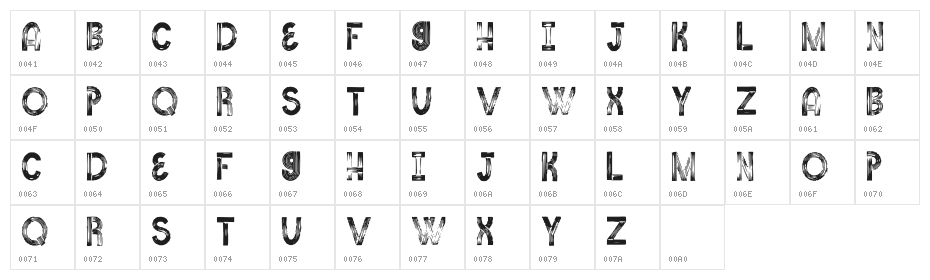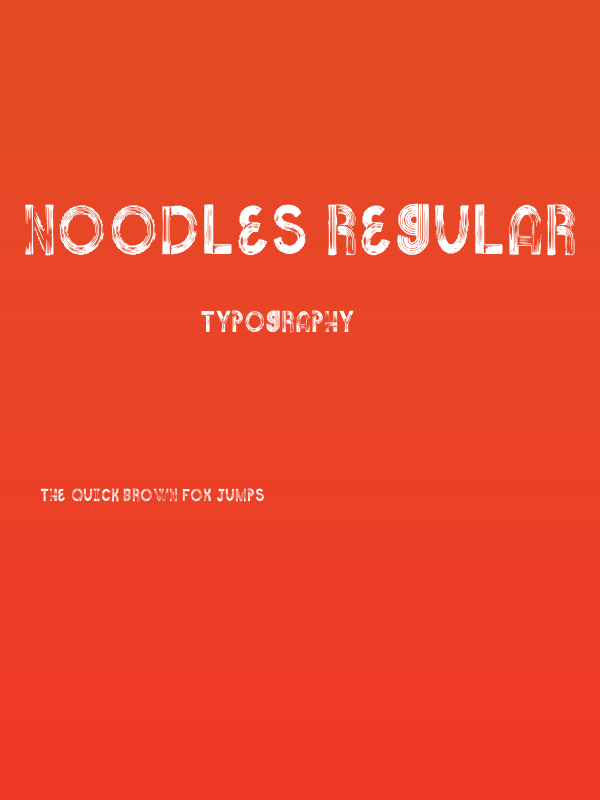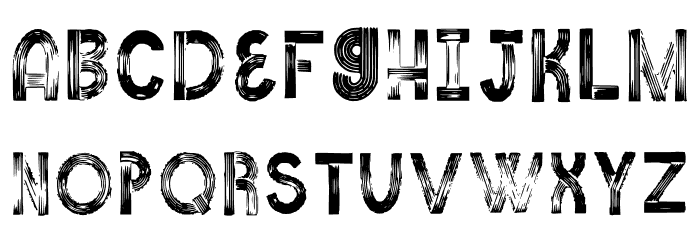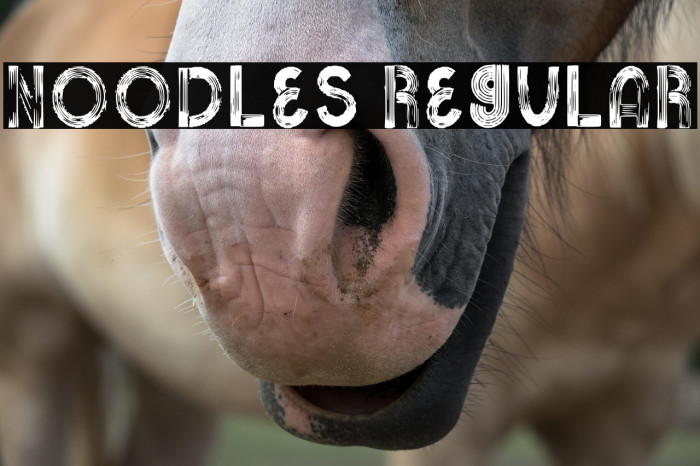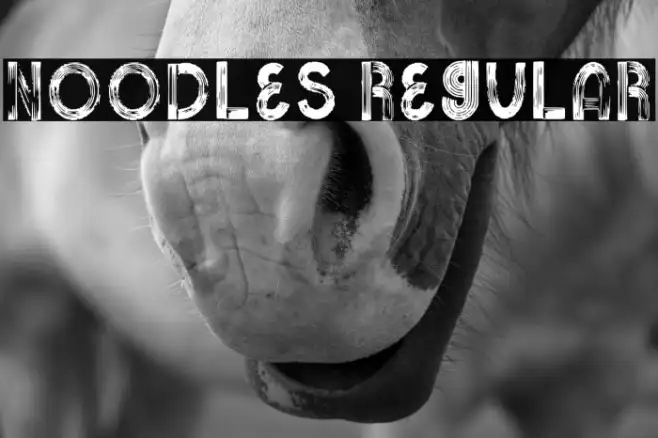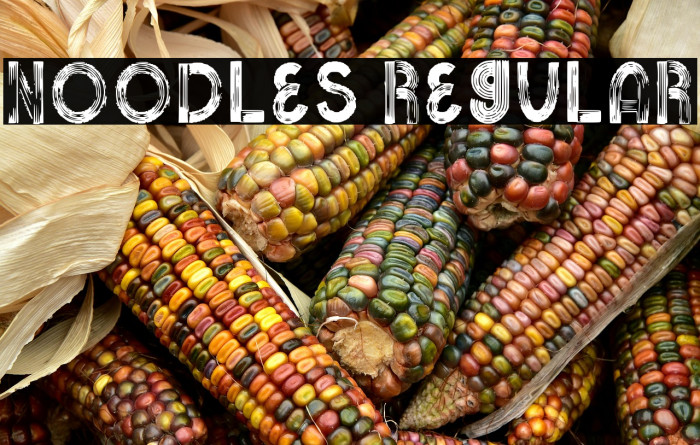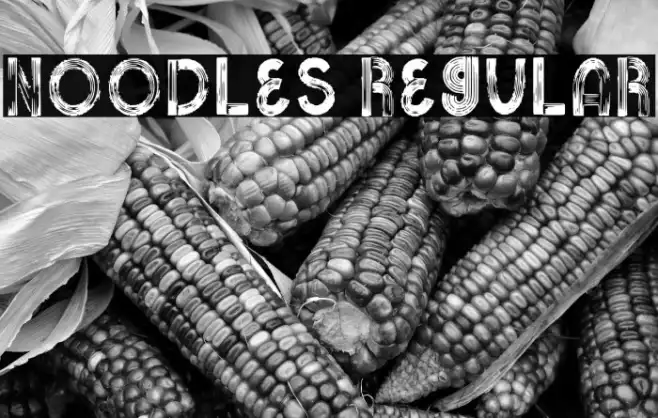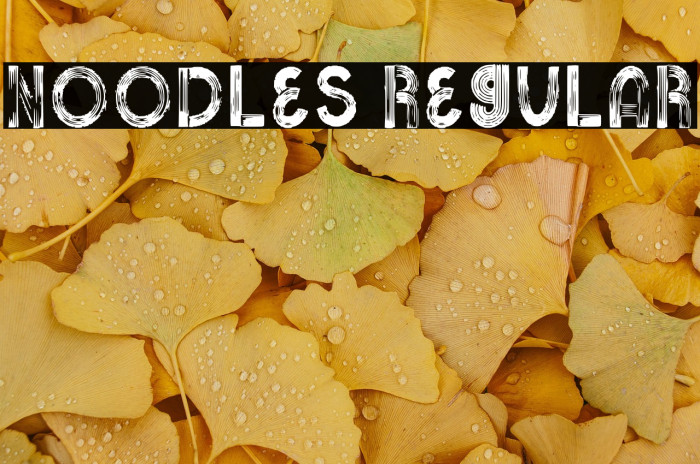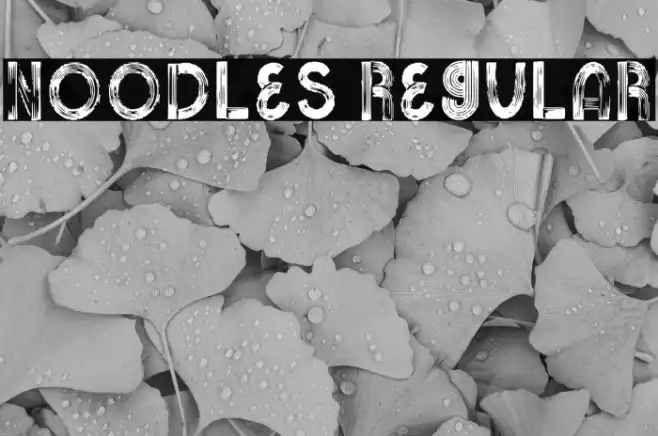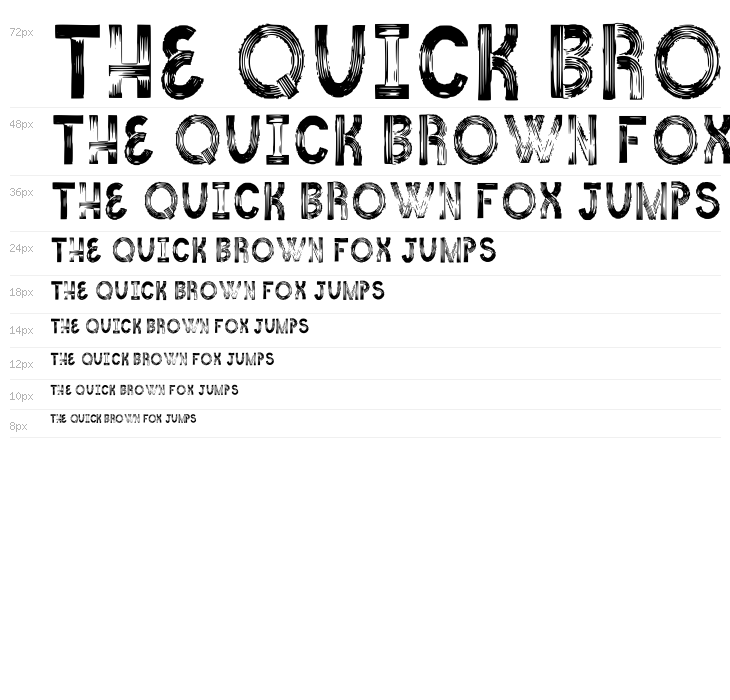
Noodles Regular Font
Noodles Regular Description
This font features a unique and artistic design with intricate line patterns that create a textured appearance. Each character is composed of multiple parallel lines, giving it a dynamic and visually engaging style. The uppercase and lowercase letters maintain a consistent design, while the numerals and special characters follow the same pattern, ensuring uniformity across the font. The overall look is bold and decorative, making it suitable for creative and eye-catching projects.
| Proposed Projects | Ideal for posters, album covers, branding, and any project requiring a striking visual impact. |